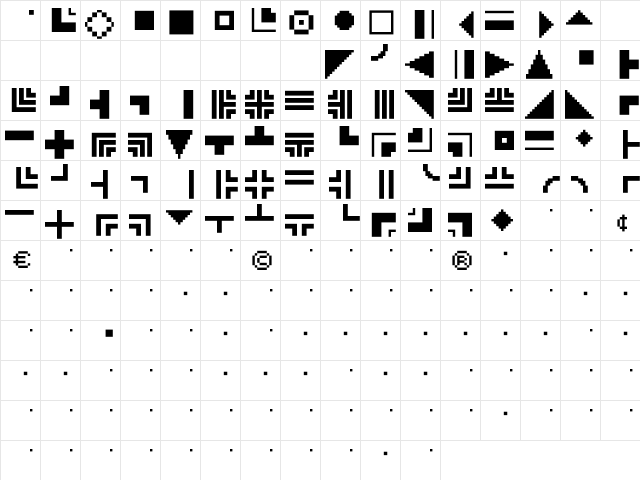
Extras10 Regular
Design Context for Extras10 Typeface
Extras10 offers clean, dependable letterforms without strong stylistic allegiance, making it a practical choice for designers who need flexibility.